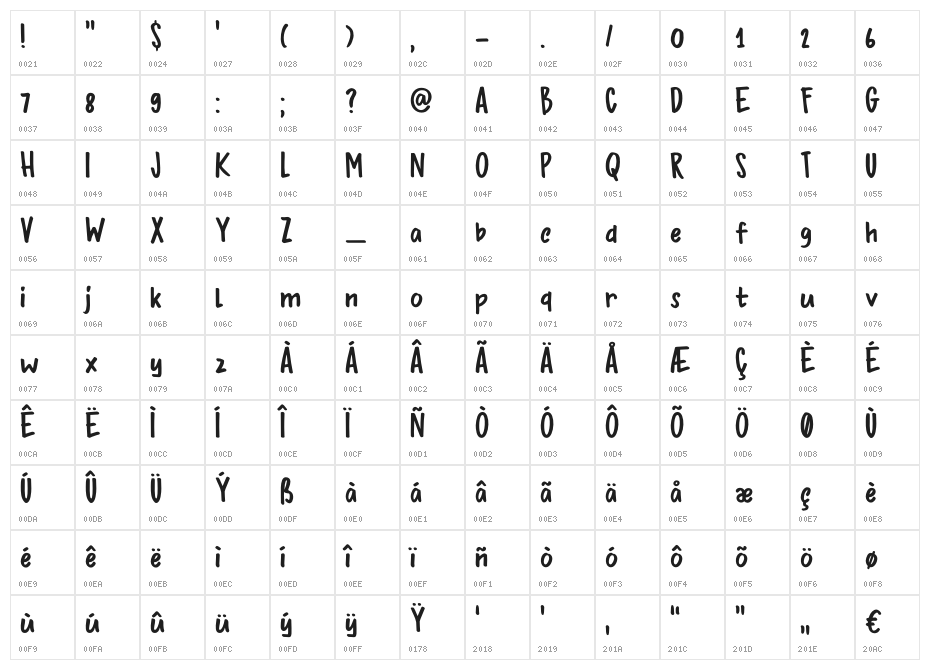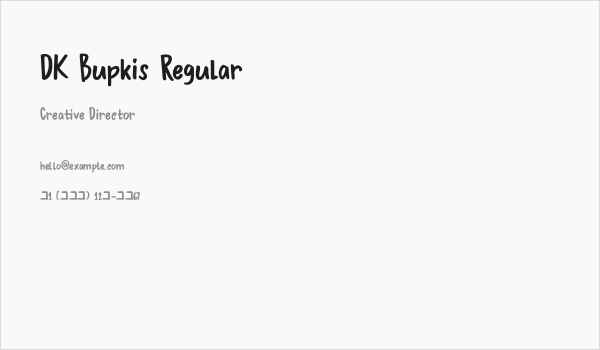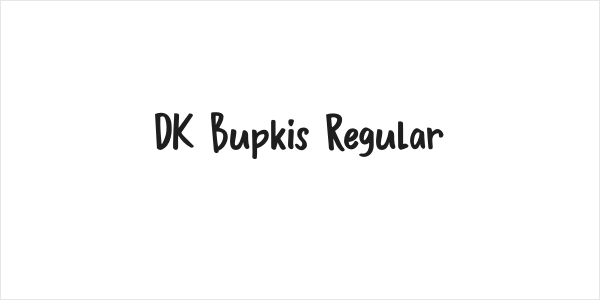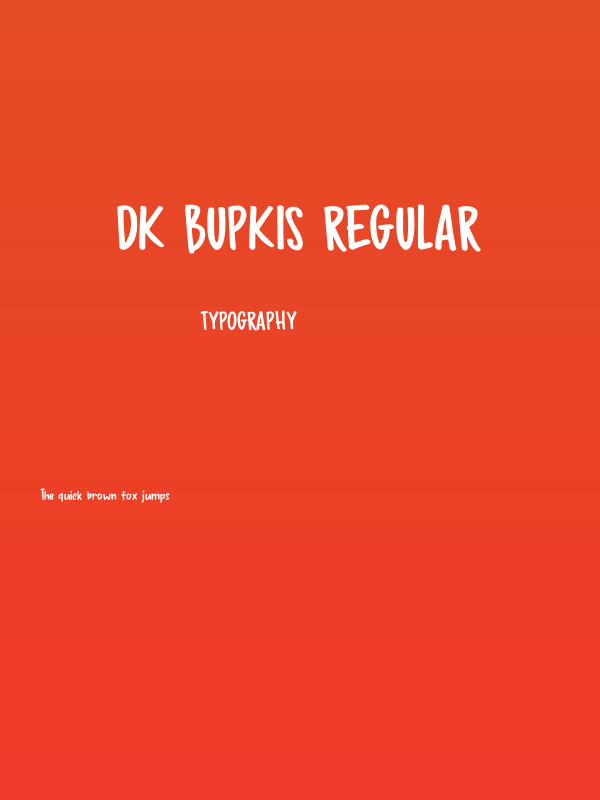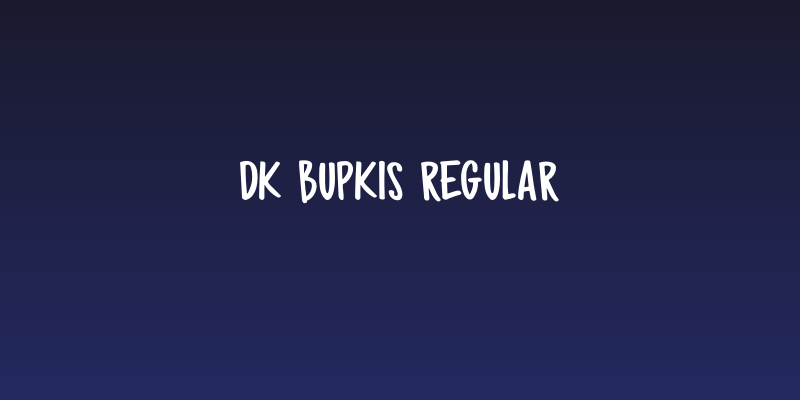
DK Bupkis Regular Font
DK Bupkis Regular Description
This font features a playful and casual handwritten style, characterized by its bold and rounded letterforms. The uppercase and lowercase letters maintain a consistent flow, with slightly irregular strokes that add a touch of whimsy. The numbers and special characters follow the same playful aesthetic, making it suitable for informal and creative projects. The overall appearance is friendly and approachable, with a modern twist that makes it versatile for various design needs.
| Proposed Projects | Ideal for children's books, greeting cards, playful branding, and social media graphics. |